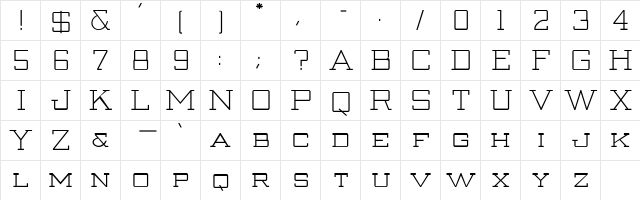
Strongman-Norma Regular
Design Context for Strongman-Norma Typeface
Strongman-Norma is a composed and adaptable typeface that performs quietly and consistently across a wide range of design contexts.